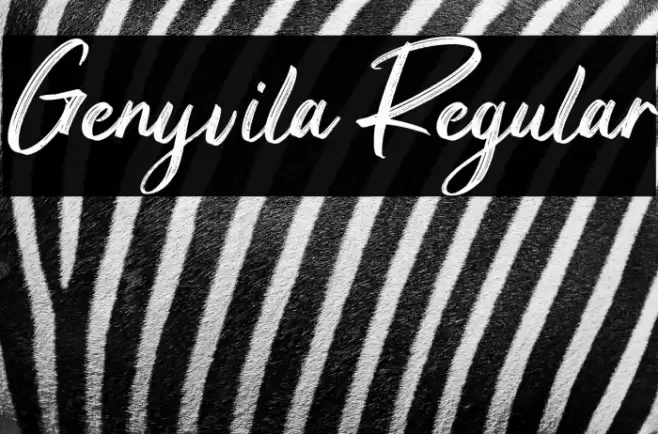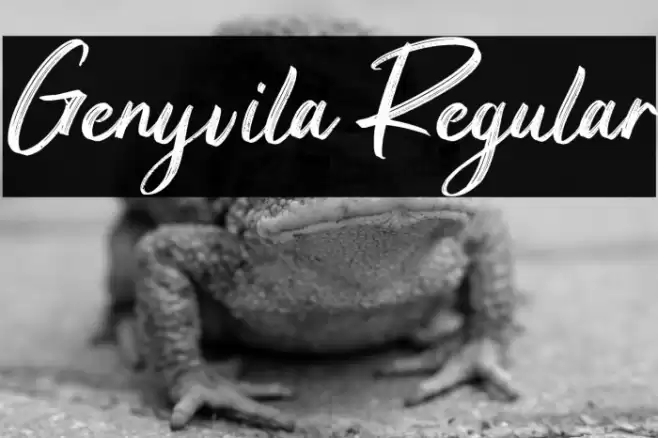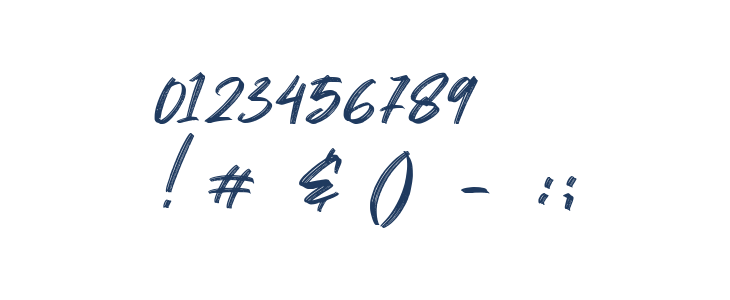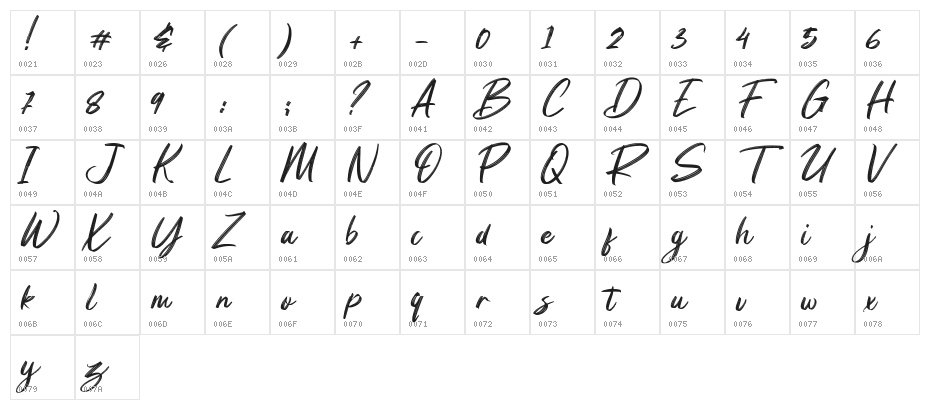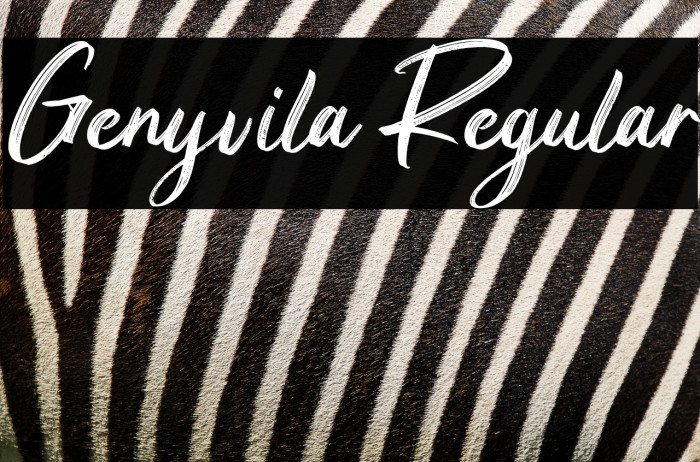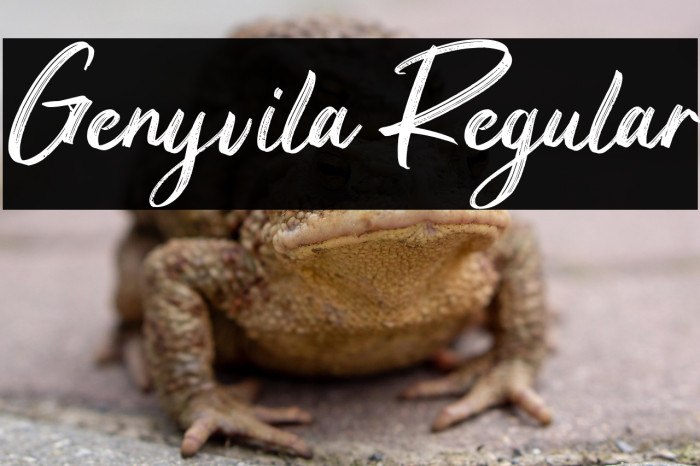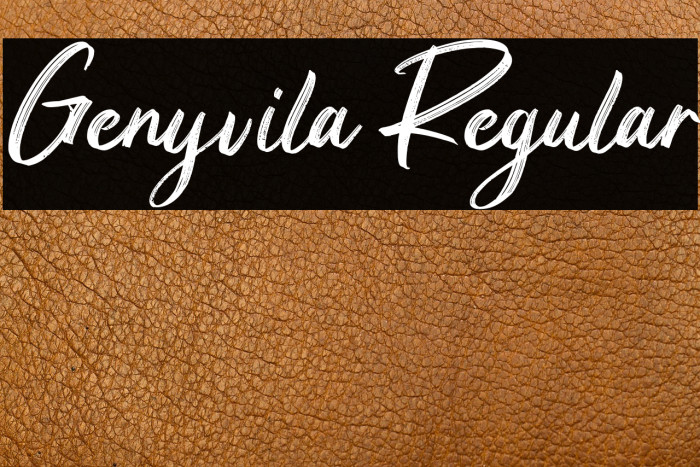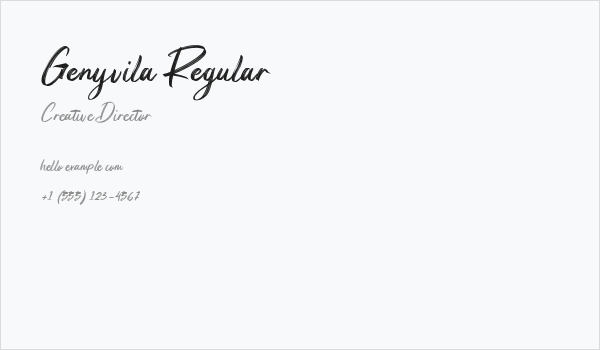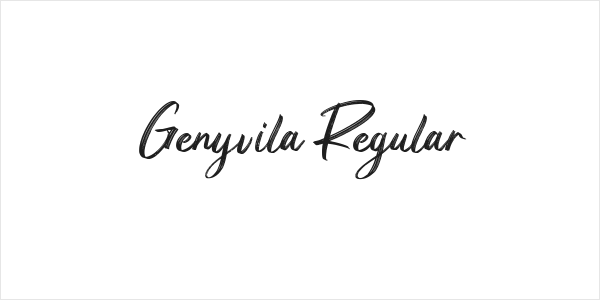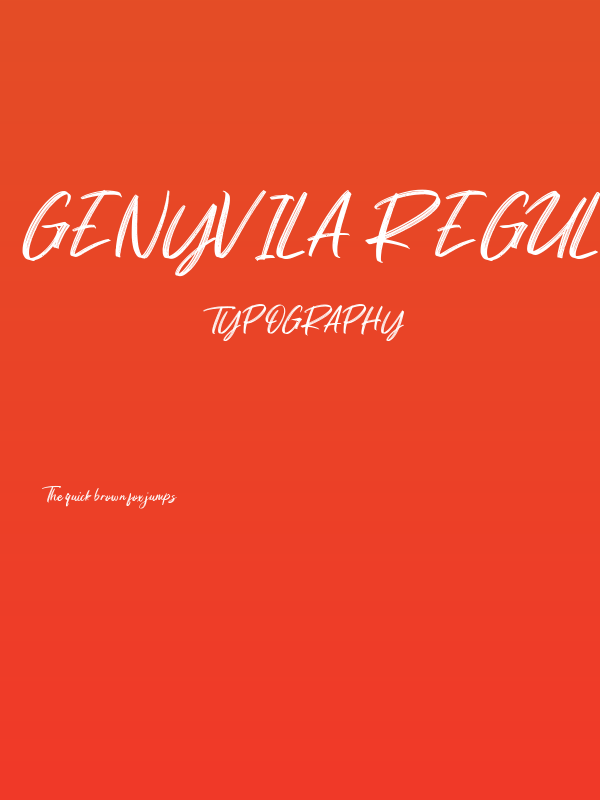
Genyvila Regular Font
Genyvila Regular Description
This font exhibits a dynamic and energetic script style, characterized by its fluid, cursive strokes and a sense of movement. The uppercase letters are bold and slightly slanted, giving a sense of urgency and flair, while the lowercase letters maintain a consistent flow with elegant loops and curves. The numbers and special characters complement the overall style with their cohesive design. The font's brush-like appearance adds a handcrafted touch, making it suitable for creative and expressive projects.
A dynamic script font with fluid, cursive strokes and a brush-like appearance from Regular fonts.
- Proposed Projects: Ideal for branding, invitations, greeting cards, and artistic projects that require a personal touch.
- Use Case: Logos, Headlines, Artistic projects